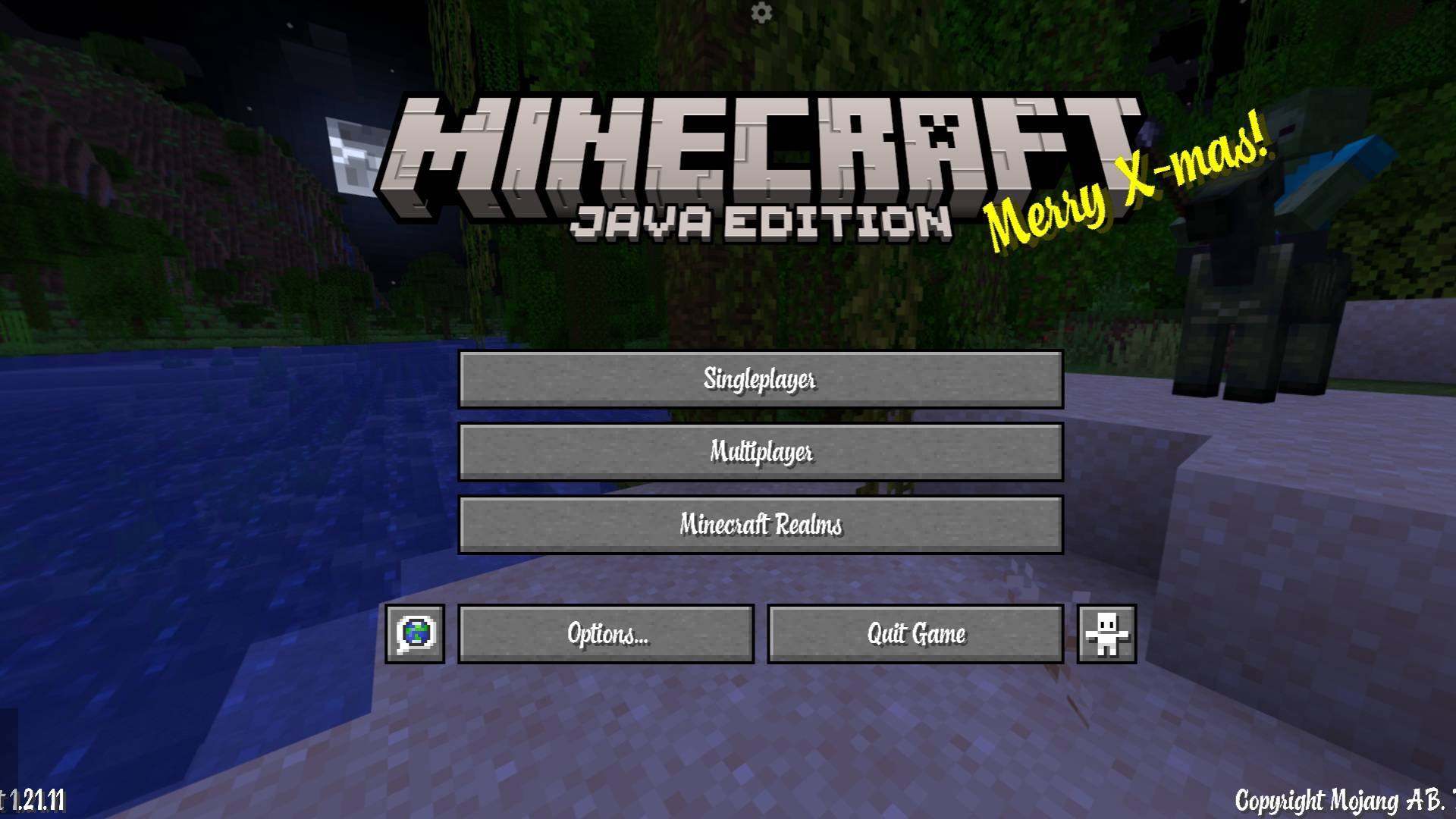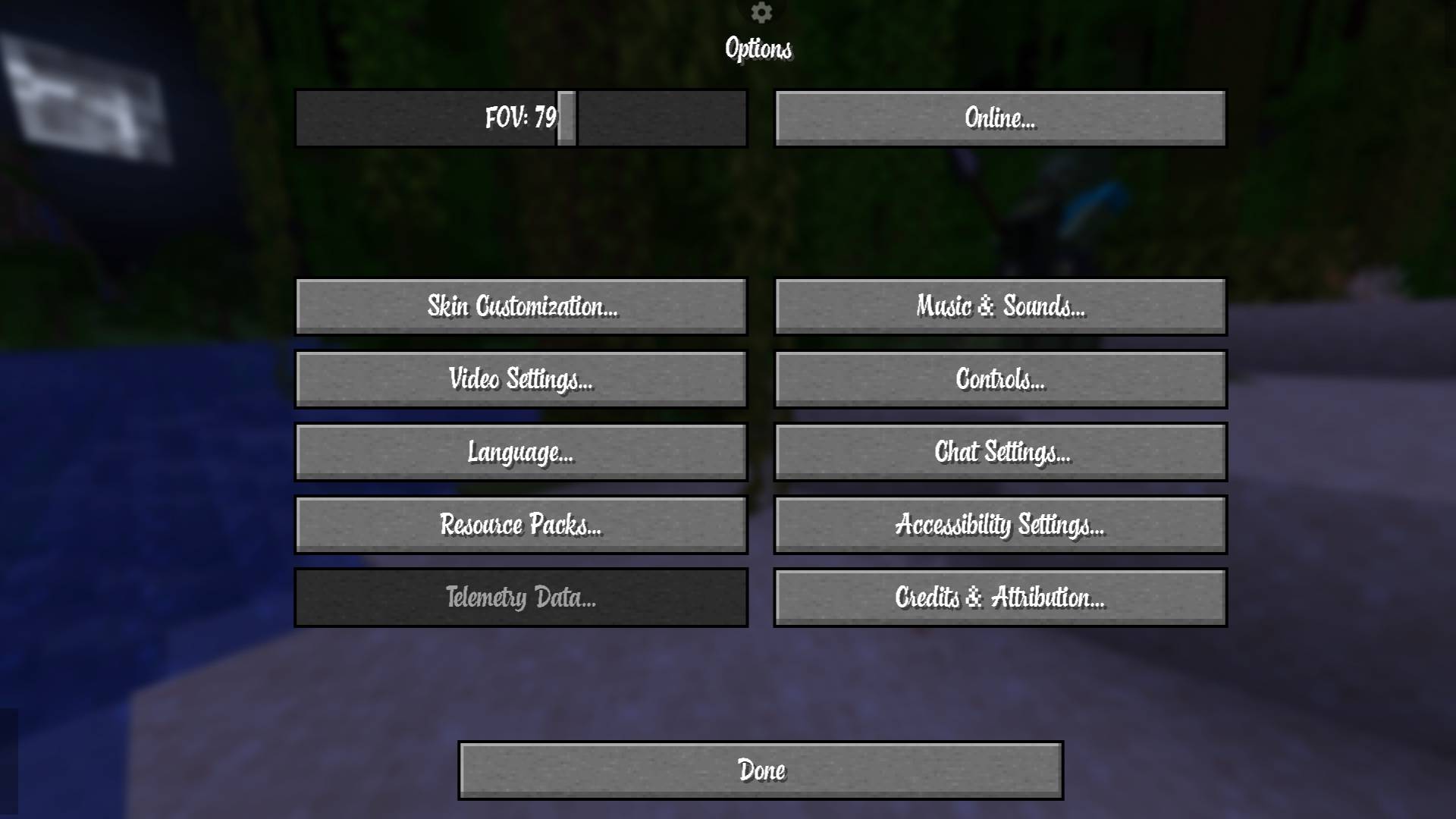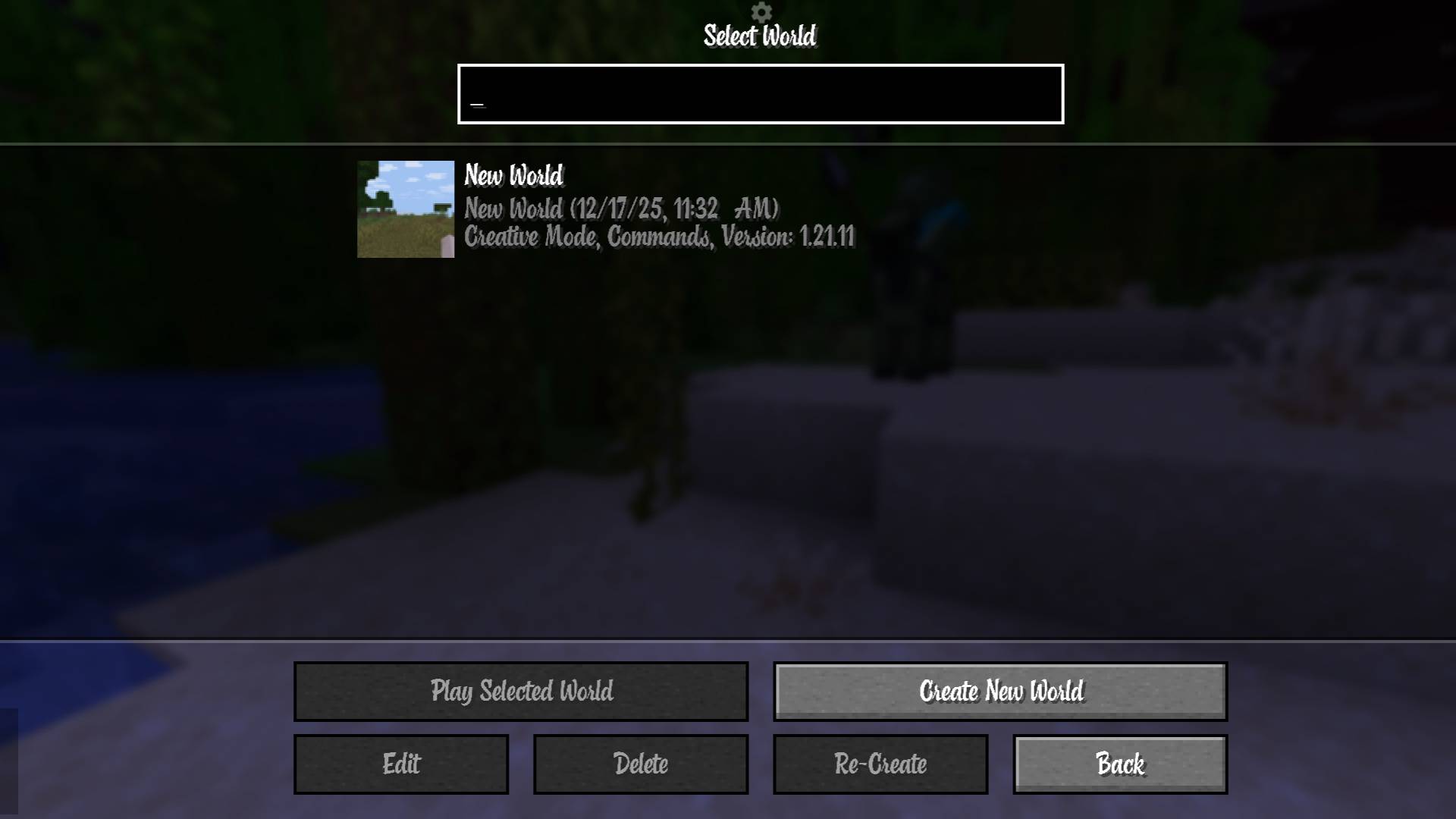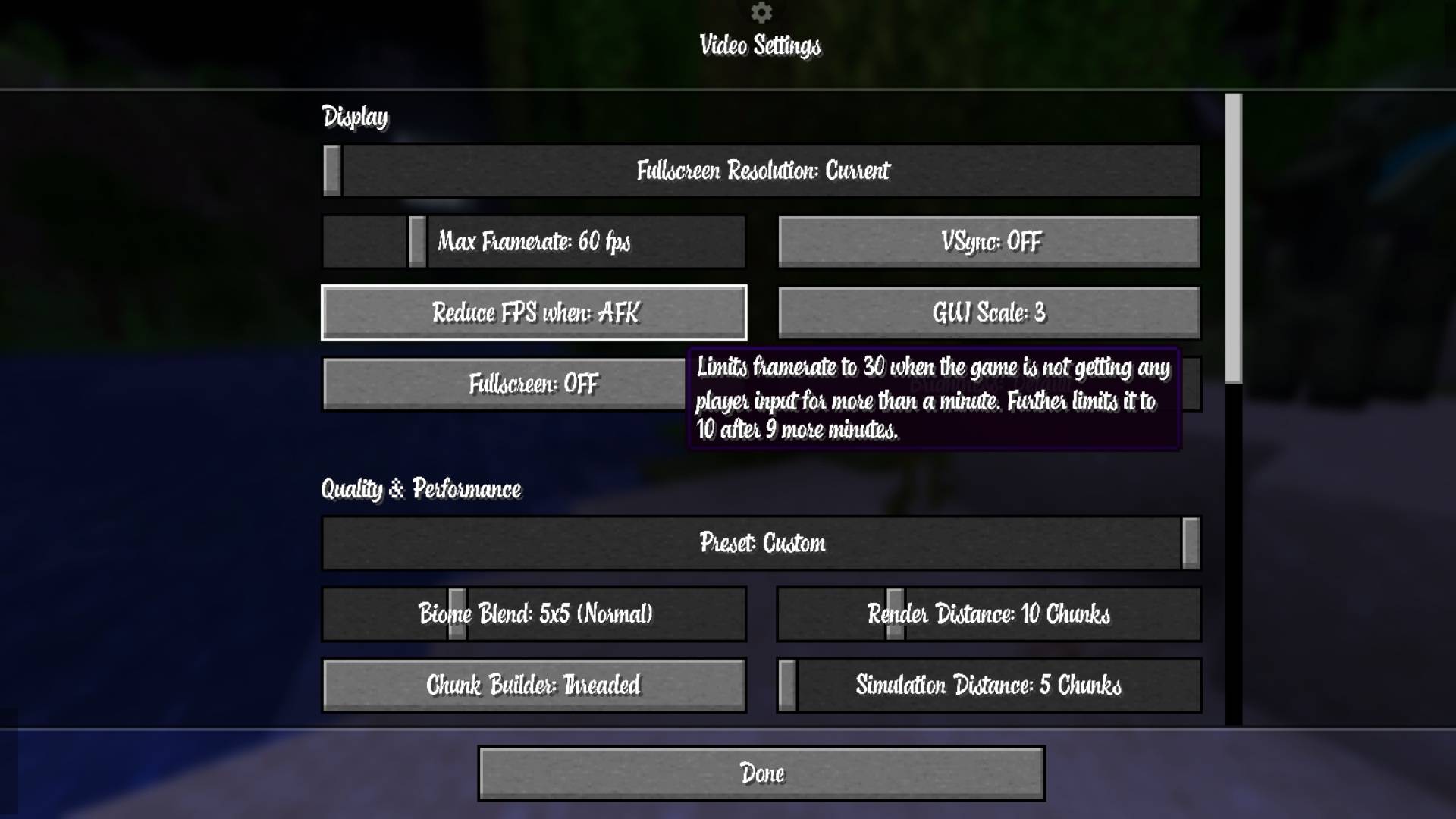
Smooth font | Modern Font
Chocolate Font (Smooth) replaces Minecraft’s default pixel font with a clean, smooth, and modern typeface. It improves readability across menus, chat, and UI while keeping a vanilla-friendly look.
🍫 Chocolate Font (Smooth)
Chocolate Font (Smooth) is a clean, modern font resource pack for Minecraft Java Edition that replaces the default pixel font with a smooth, stylish, and highly readable typeface—without breaking the vanilla UI feel.
Perfect for players who want a fresh look, content creators, and anyone tired of jagged or overly blocky fonts.
✨ Features
• Smooth, anti-aliased font (less pixelated)
• Clean and minimal design
• Easy on the eyes for long play sessions
• Works seamlessly with Minecraft’s UI
• Ideal for menus, chat, and HUD text